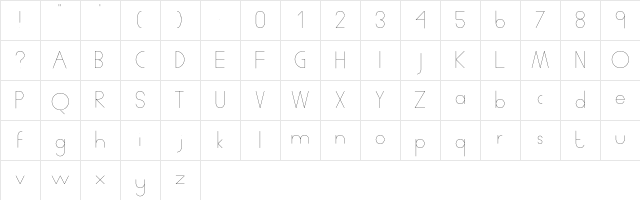
Human P.J Skinny
Style: Skinny
Foundry: Peter Judson
Designer: Peter Judson
Design Context for Human P.J
Human P.J is a composed and adaptable typeface that performs quietly and consistently across a wide range of design contexts.